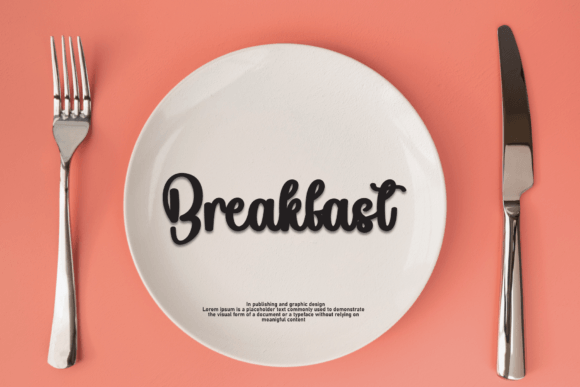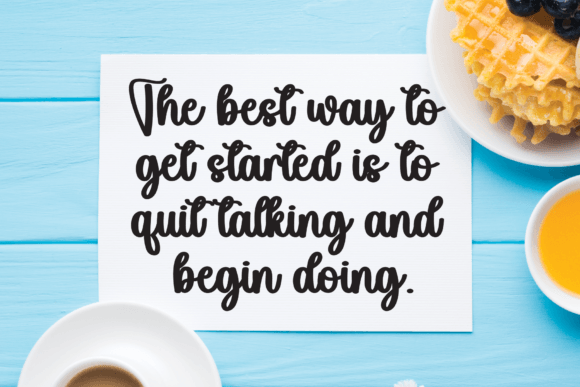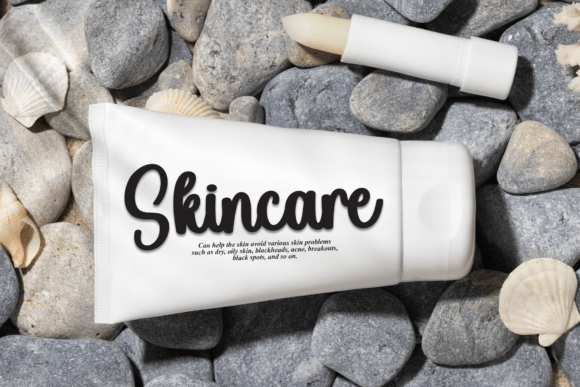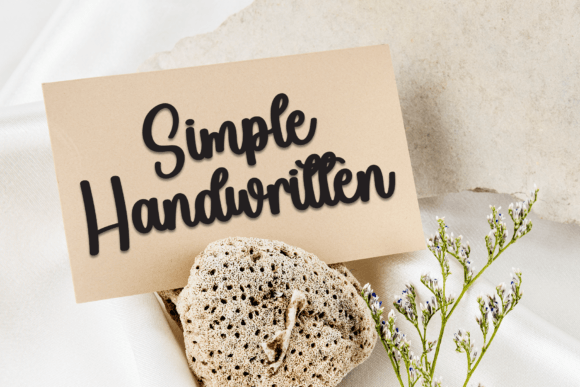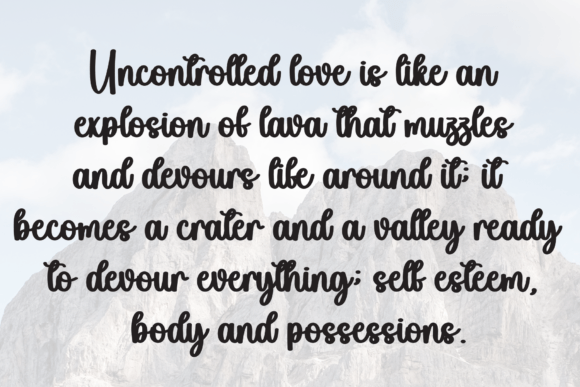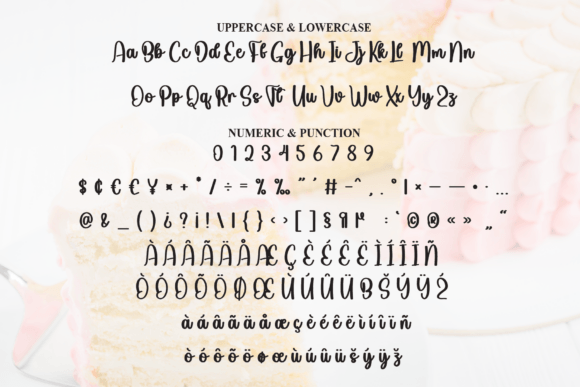
The Sweet Spot: Discovering Cake Dacquoise Font
I’ll never forget the time I was working on a project for a client’s birthday party invitation. I had the design concept nailed down, but something was missing – the perfect font. I scrolled through page after page of Google Fonts, but nothing seemed quite right. That was until I stumbled upon Cake Dacquoise. Its bold, playful letters immediately caught my eye, and I knew I had found the one. In this article, I’ll share my experience with Cake Dacquoise, its features, and how to make the most of this charming font.
A First Impression: What I Love About Cake Dacquoise
Cake Dacquoise is a bold, handwritten font that exudes a playful and charming style. Here are some things I love about it:
• ✨ Strong presence: The thick letters give it a robust and eye-catching quality, making it perfect for designs that need to stand out.
• ✅ Fun and personal touch: Cake Dacquoise adds a playful vibe to any design, making it ideal for invitations, posters, and other creative projects.
• 🎉 Versatility: This font can be used for a wide range of projects, from digital designs to print materials.
The Not-So-Perfect: Small Quirks and Limitations
While Cake Dacquoise is an excellent font, it’s not without its quirks. Here are a few things to keep in mind:
• 🤔 Legibility at small sizes: Due to its bold nature, Cake Dacquoise can become a bit tricky to read at very small sizes. It’s best used at larger sizes where its playful personality can shine.
• ⚠️ Overuse: As with any bold font, it’s easy to overuse Cake Dacquoise. Make sure to balance it with other design elements to avoid overwhelming the viewer.
Cake Dacquoise supports OpenType features, which allow you to access additional glyphs and stylistic alternates. To access these features:
The Story Behind Cake Dacquoise
Cake Dacquoise was inspired by the French dessert dacquoise, a meringue-based cake. The font’s creator aimed to capture the playful, whimsical spirit of this beloved treat. With its bold letters and charming personality, Cake Dacquoise is sure to add a touch of sweetness to your designs.
What type of projects is Cake Dacquoise best suited for? Cake Dacquoise is perfect for designs that need a playful, personal touch, such as invitations, posters, and other creative projects.
Is Cake Dacquoise suitable for body text? While Cake Dacquoise is a beautiful font, it’s best used as a display font or for short paragraphs. Its bold nature can make it difficult to read in long blocks of text.